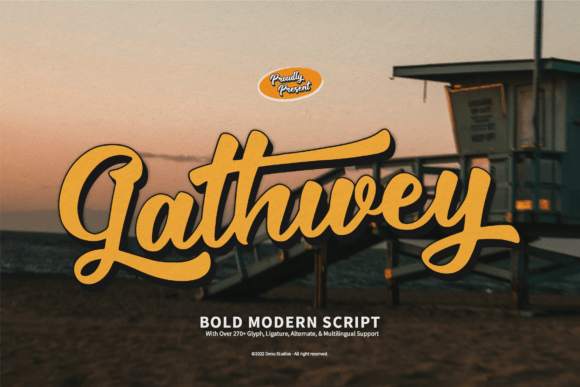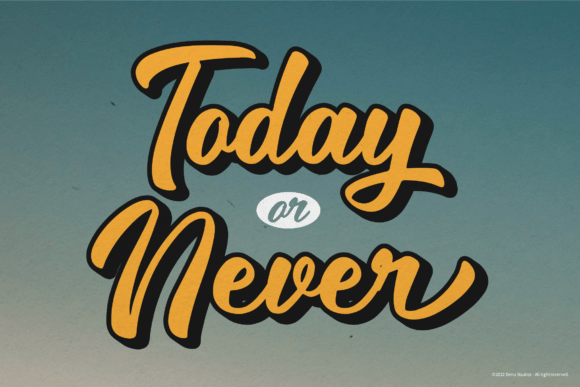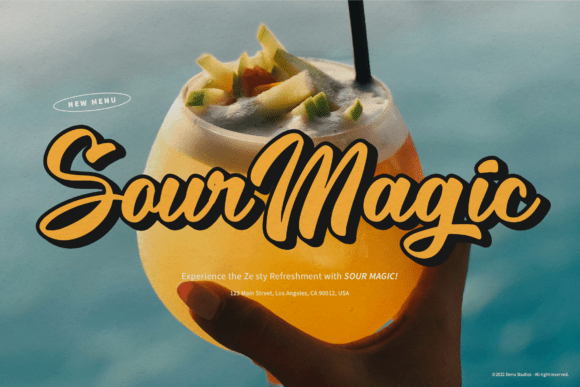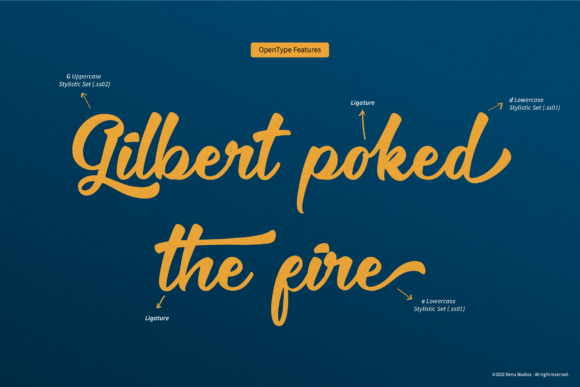
Gathwey Font: Bold Retro Script for Eye-Catching Headline Designs!
About the Gathwey Font
The Gathwey Font offers a perfect balance of form and function for your design needs. Gathwey is a bold, energetic script font with a modern, hand-lettered feel. Its smooth curves and thick strokes make it perfect for branding, sports designs, logos, apparel, and eye-catching headlines. With a dynamic, retro-inspired style, Gathwey adds a fun and confident vibe to any project.
Gathwey’s strong personality makes it ideal for headlines, short impactful phrases, and logo design where its bold energy can shine. It’s less suitable for body text or lengthy paragraphs; the script style can become visually overwhelming and difficult to read at smaller sizes. Consider using it sparingly in packaging design, perhaps for a brand name or a short, punchy tagline.
Its retro-inspired boldness pairs well with clean, geometric sans-serif fonts like Montserrat or Futura for a balanced contrast. For a softer approach, consider pairing it with a classic serif like Garamond or a more modern serif like Playfair Display to temper its energetic feel. Avoid pairing it with other script fonts, as this would likely create visual clutter.
Gathwey projects a confident and playful, yet modern, personality. Brands focused on youth culture, sports, entertainment, or food and beverage, particularly those seeking a retro-inspired aesthetic, would find it highly effective.
Gathwey Font Example